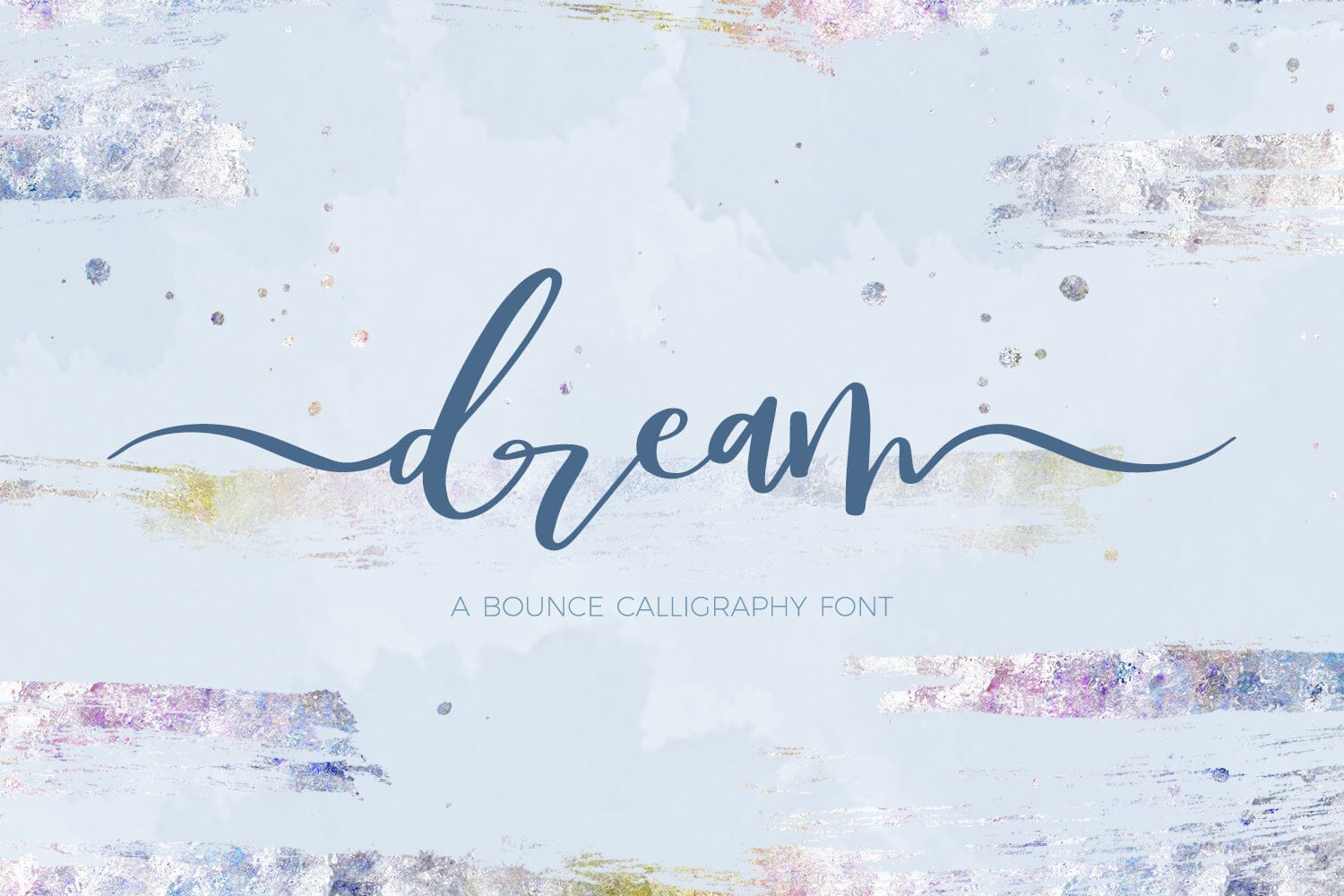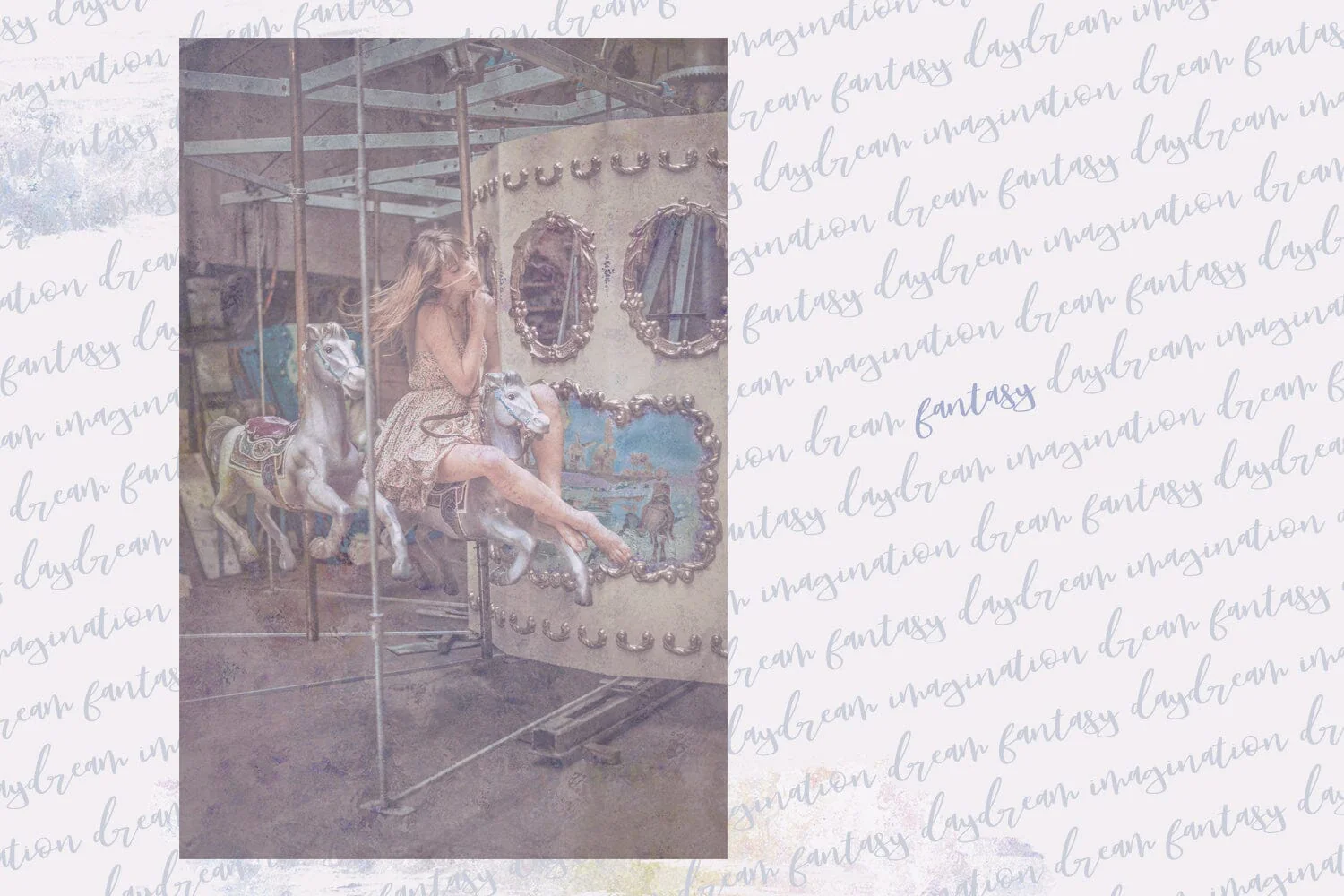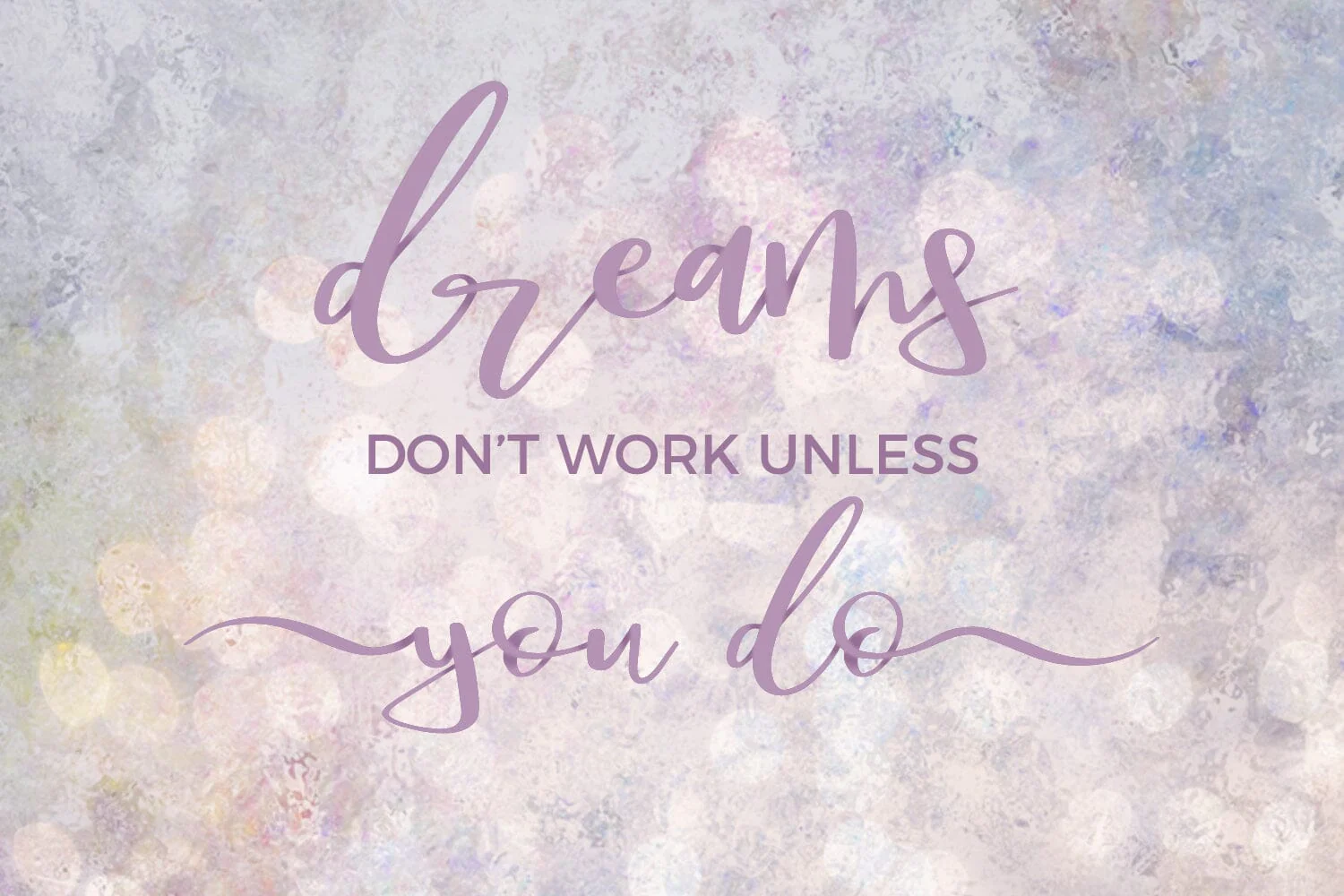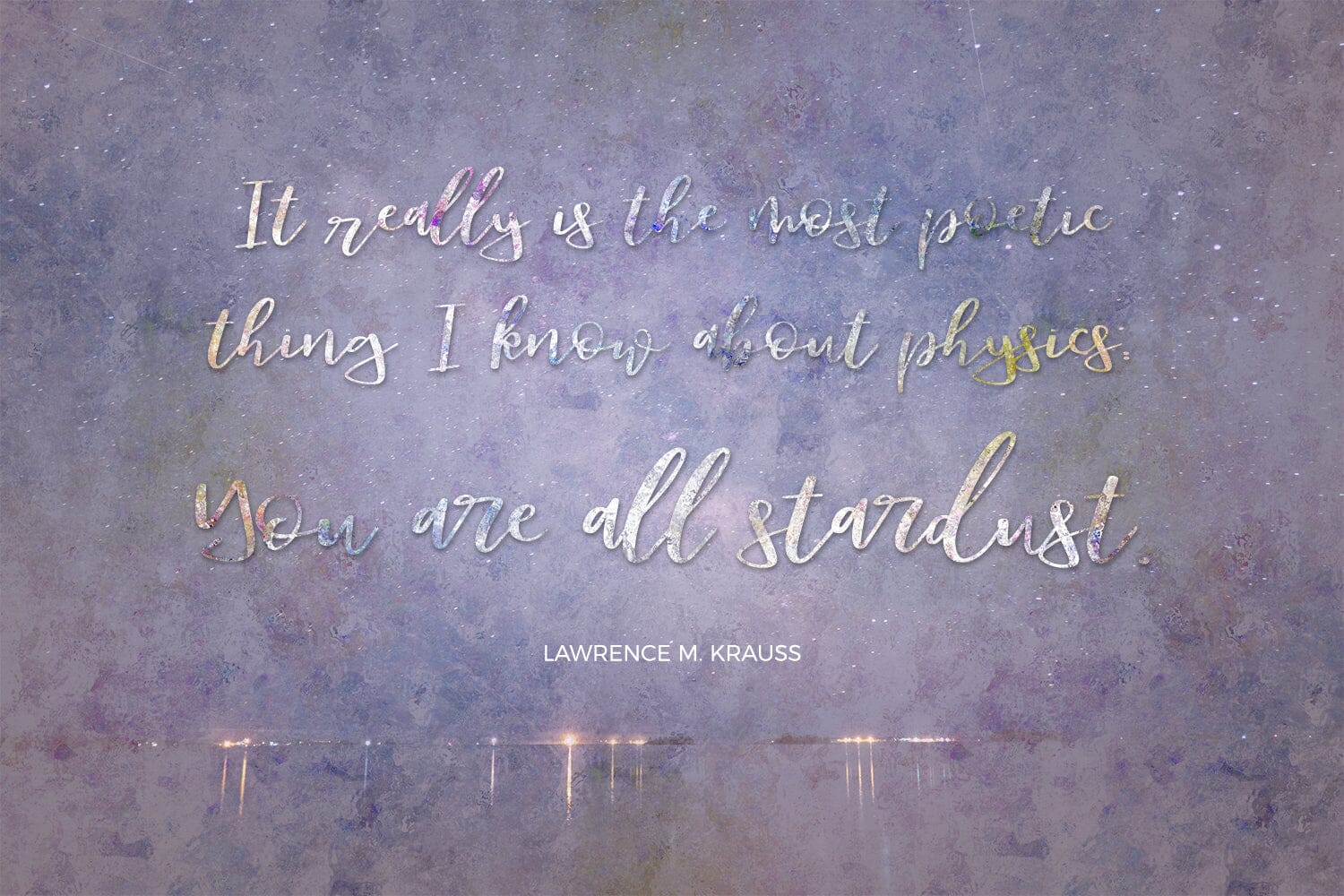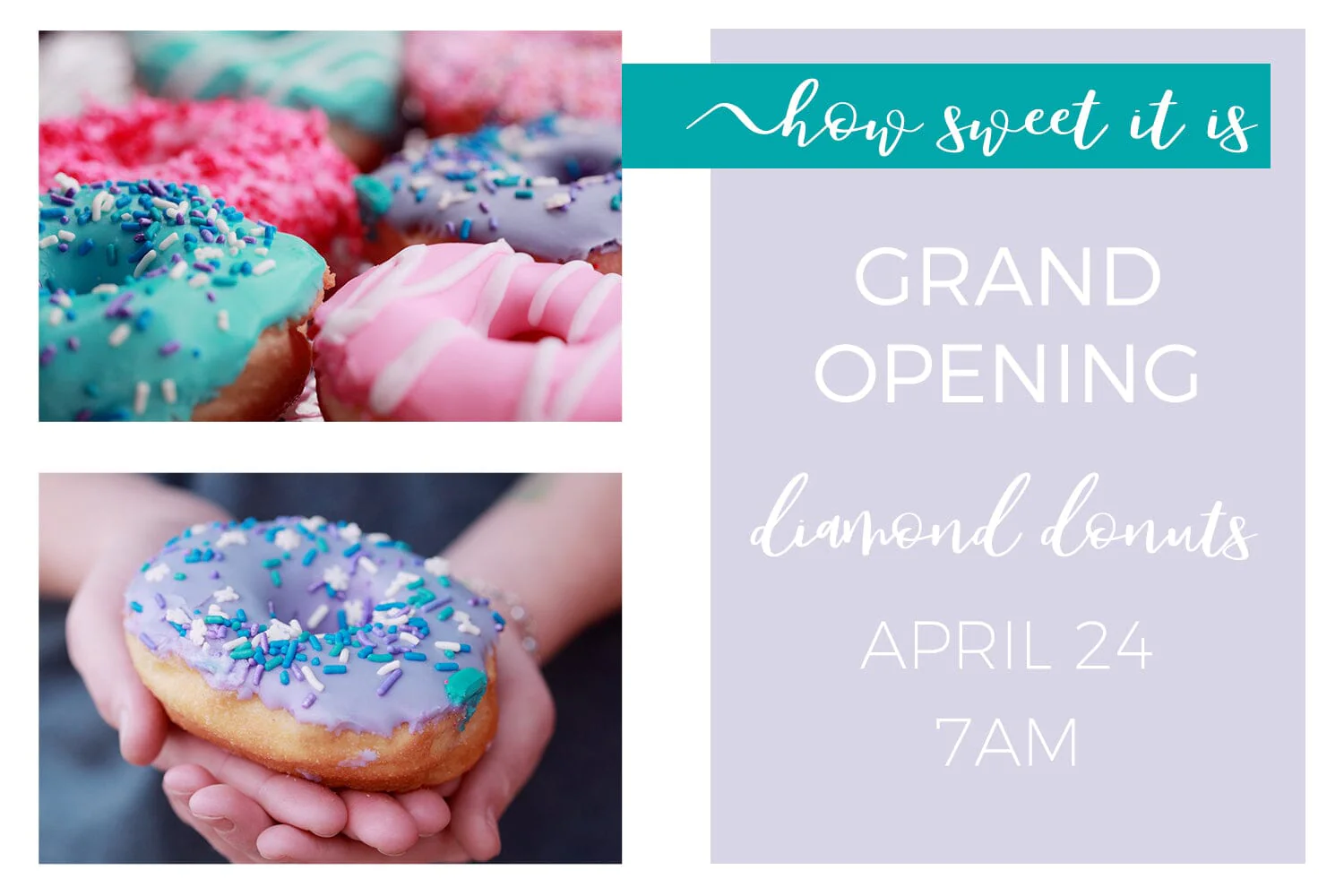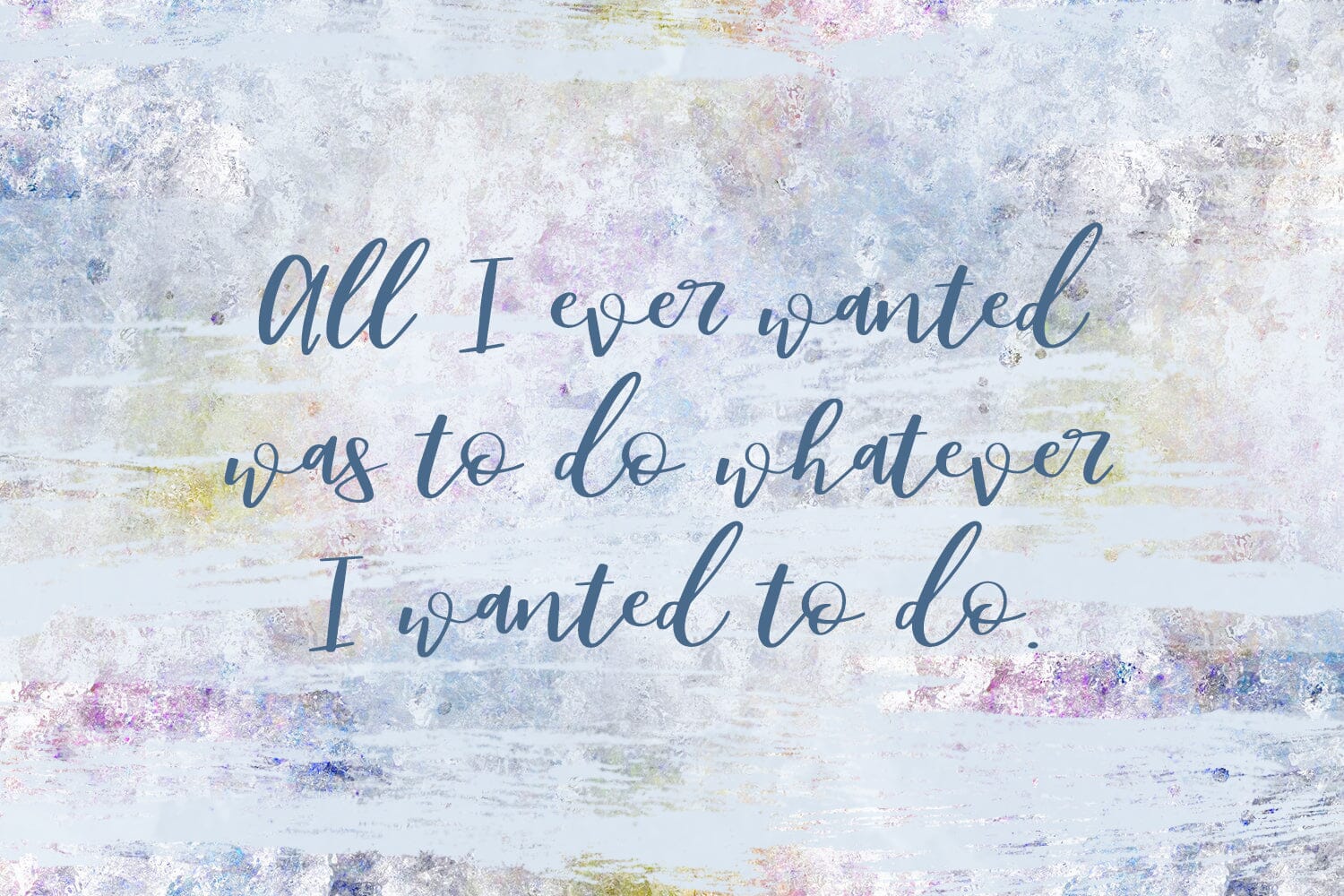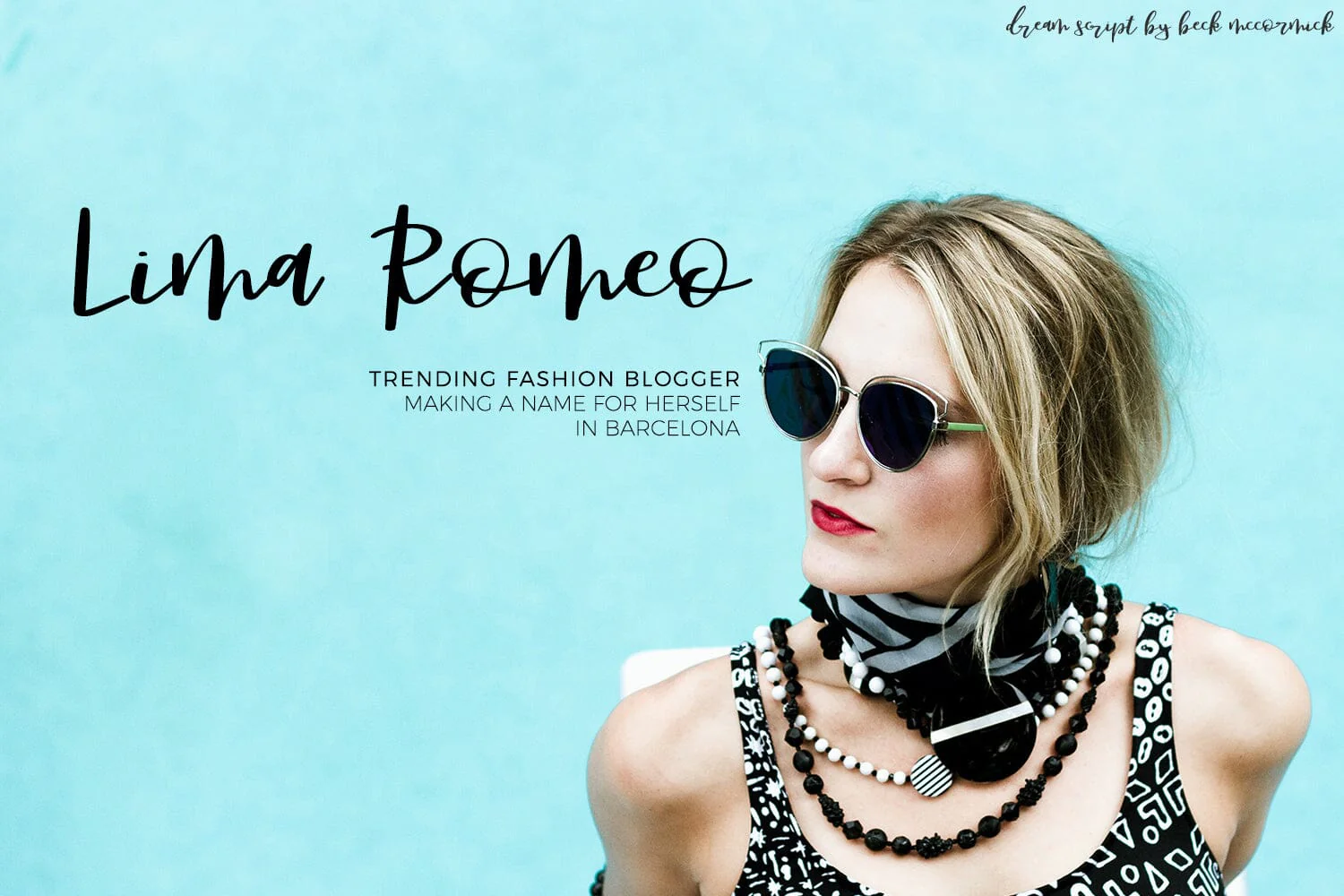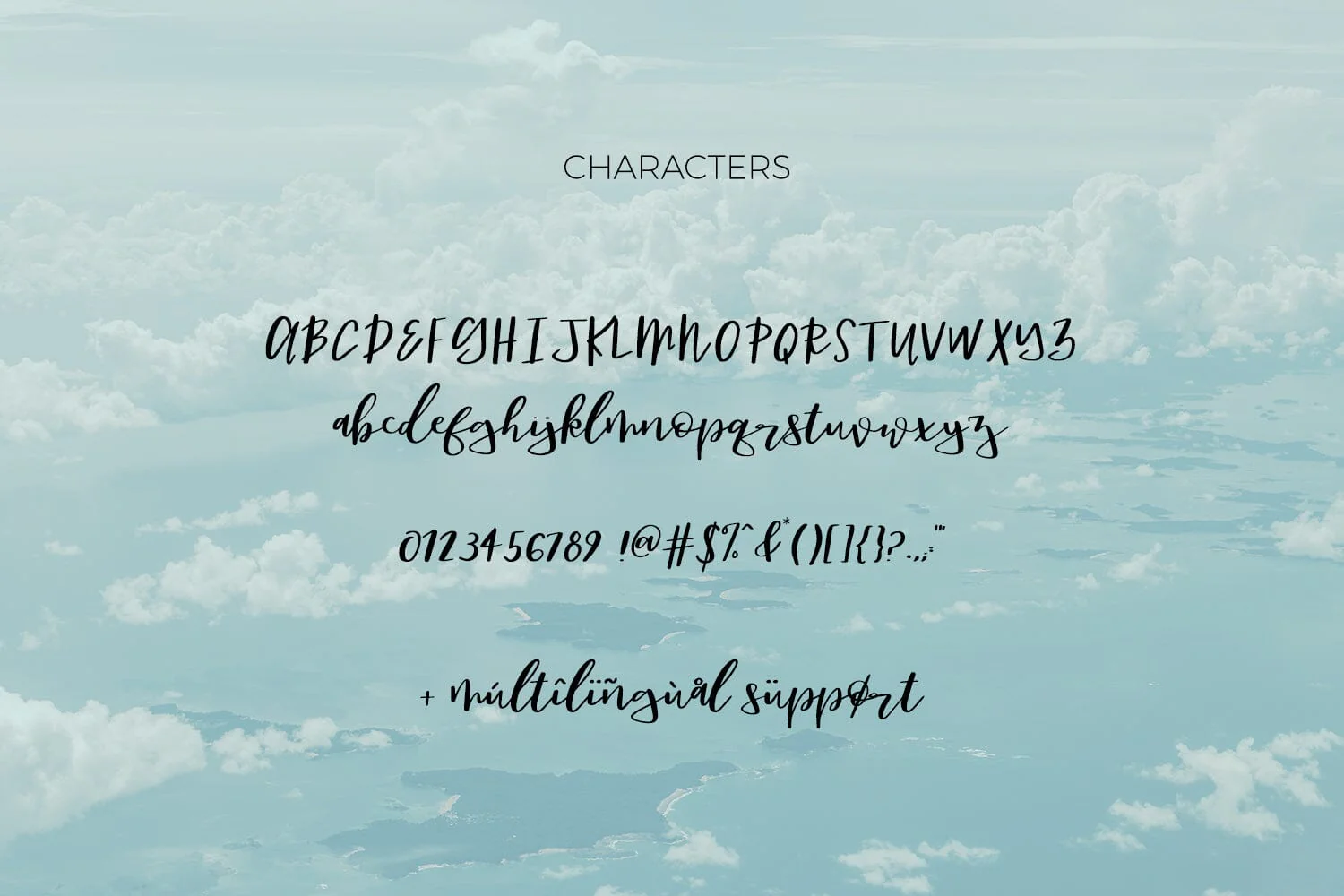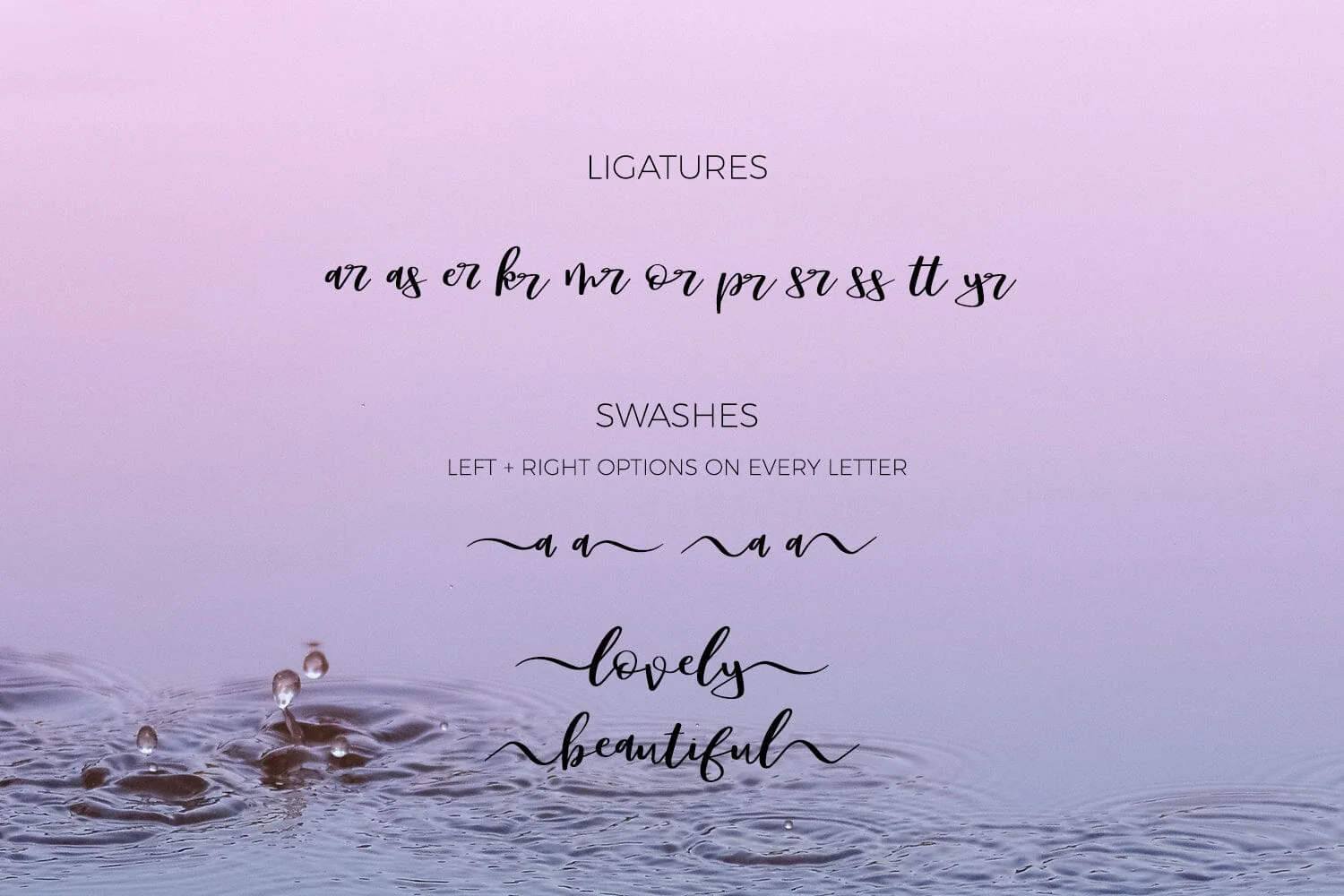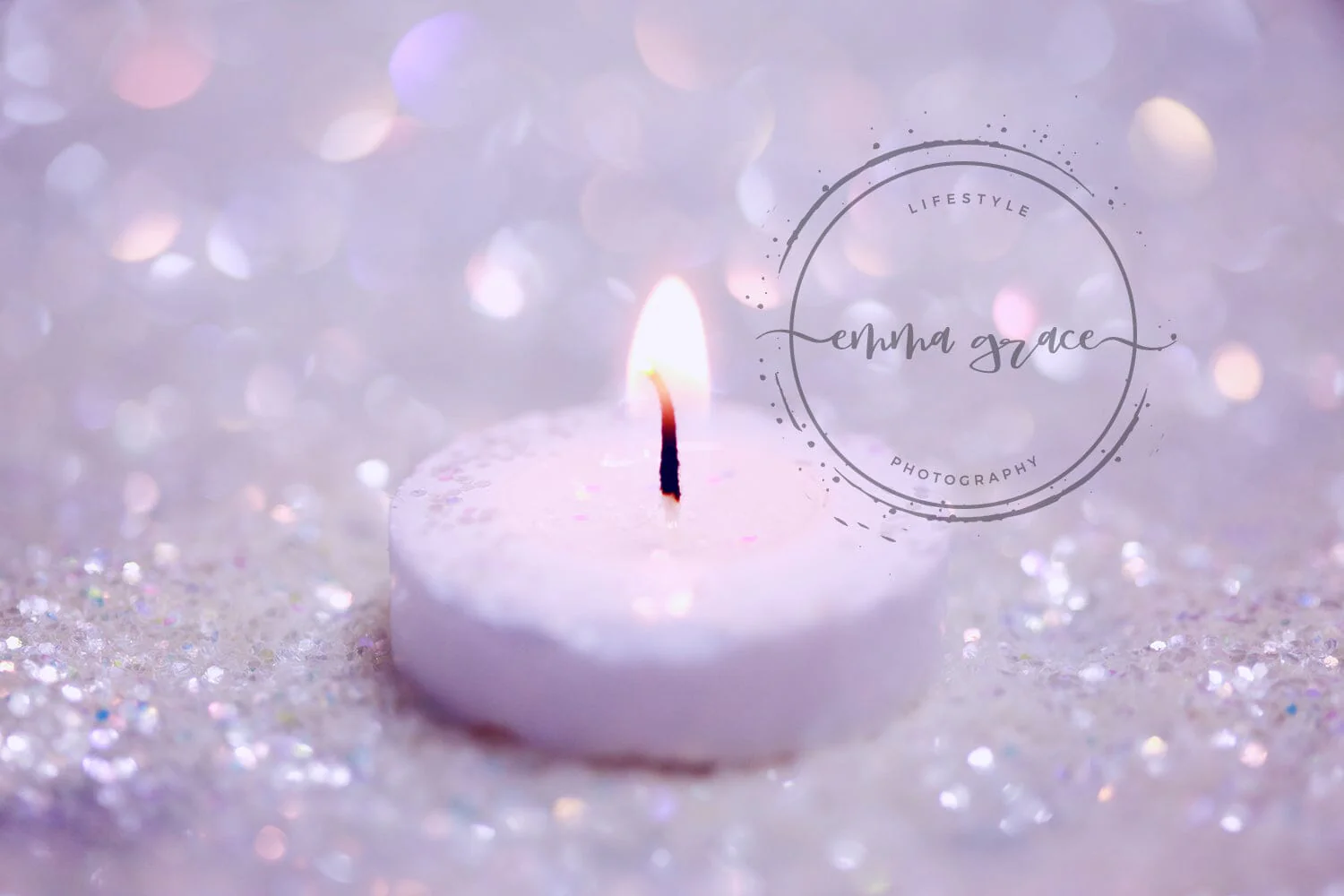
Dream Bounce Calligraphy Font
Dream is a bounce calligraphy font, featuring two different swash options, with both left and right swashes, and a few ligatures. Its up & down baseline makes it visually interesting, and perfect for modern branding, invitations, or quote graphics. Dream is PUA-encoded, making its extensive features easy to access.